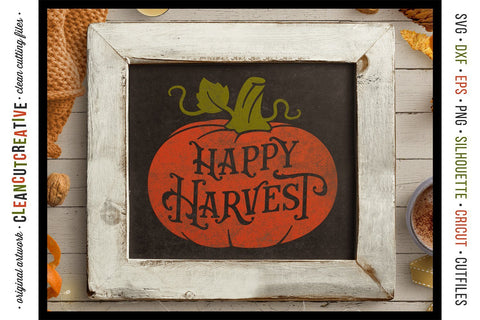
Happy Harvest - Vintage Rustic Pumpkin Fall Design - SVG craft file
HAPPY HARVEST - Pumpkin Fall design in rustic farmhouse style with vintage lettering.